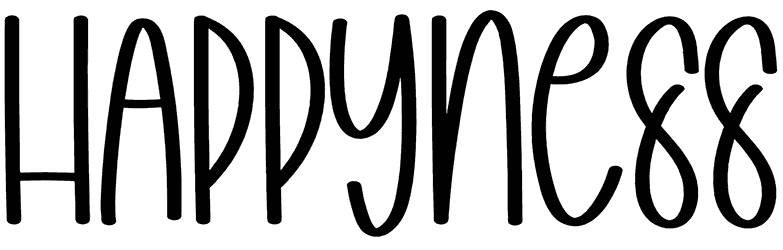
Happyness Font
As an important part of your design, having a ravishing vision for words will make them more impressive. Happyness font is a minimal handwritten font with a natural style and can convey a sweet vibe. This bullet journal font is going to amp up your birthday party Instagram post and surprise your followers.